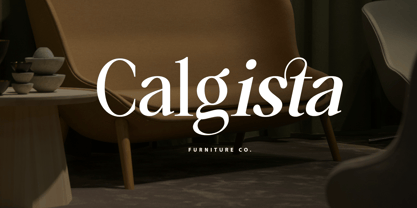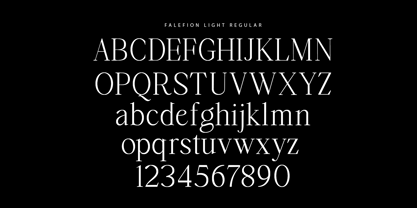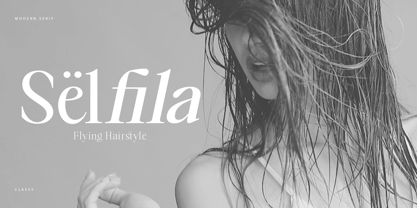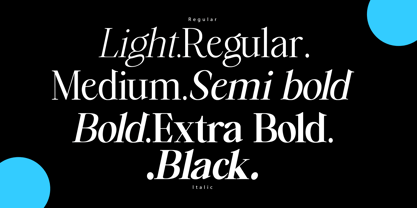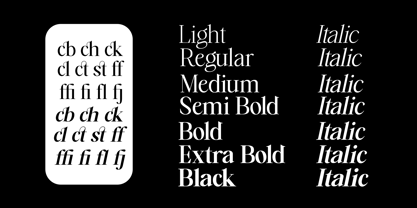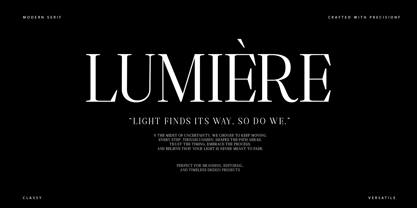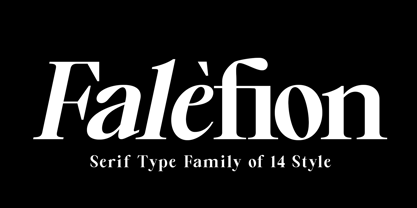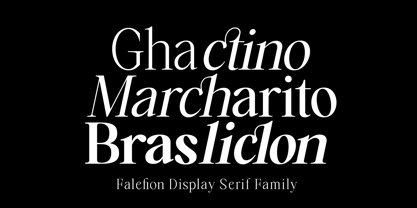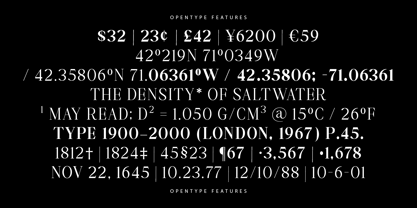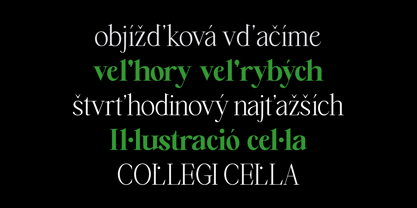
Falefion
The Falefion Font Family was designed by Zaki Muhammad and published by madjack.font. Falefion contains 14 styles and family package options. More about this family
Falèfion – An Elegant Type Family (14 Styles)
Falèfion is a modern serif font family meticulously designed to exude luxury, elegance, and sophistication. Featuring a flawless blend of smooth contemporary curves and high visual contrast, this typeface delivers a powerful, high-end aesthetic to any creative project.
Equipped with 14 versatile styles, Falèfion offers complete typographic flexibility. It allows you to build a seamless design hierarchy, moving effortlessly from bold, high-impact headlines to clean, legible body text.
Best Suited For:
• Branding & Logo Design: Establishes a premium, exclusive identity for high-end brands.
• Editorial & Layouts: Perfect for fashion magazines, book covers, and article layouts.
• Product Packaging: Elevates the visual value of cosmetics, perfumes, and luxury goods.
• Invitations & Stationery: Adds a sophisticated, timeless touch to wedding cards and formal event invites.
• Social Media & Posters: Makes promotional headlines pop with an artistic, attention-grabbing flair.
Key Specifications:
• Font Type: Contemporary Serif / Display Serif
• Total Styles: 14 integrated variations
• Design Vibe: Luxurious, clean, graceful, and timeless